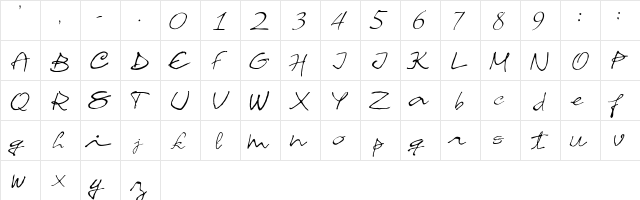
Chacross script Regular
| Foundry | Chacross MAFUALA |
| Designer | Chacross Mafuala/facebook |
Chacross script flows with the natural rhythm of handwritten lettering, making it ideal for designs that call for warmth and personal expression.